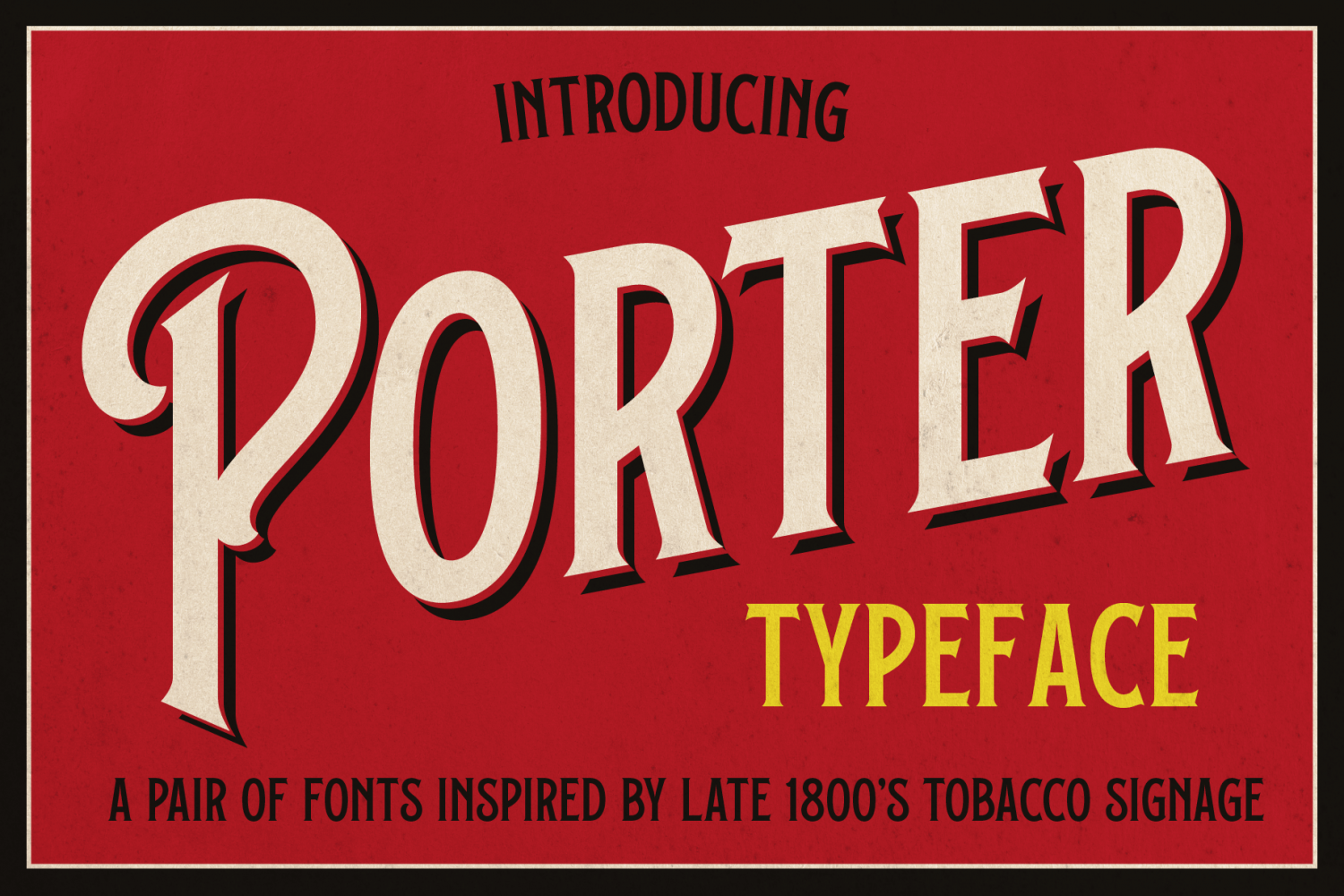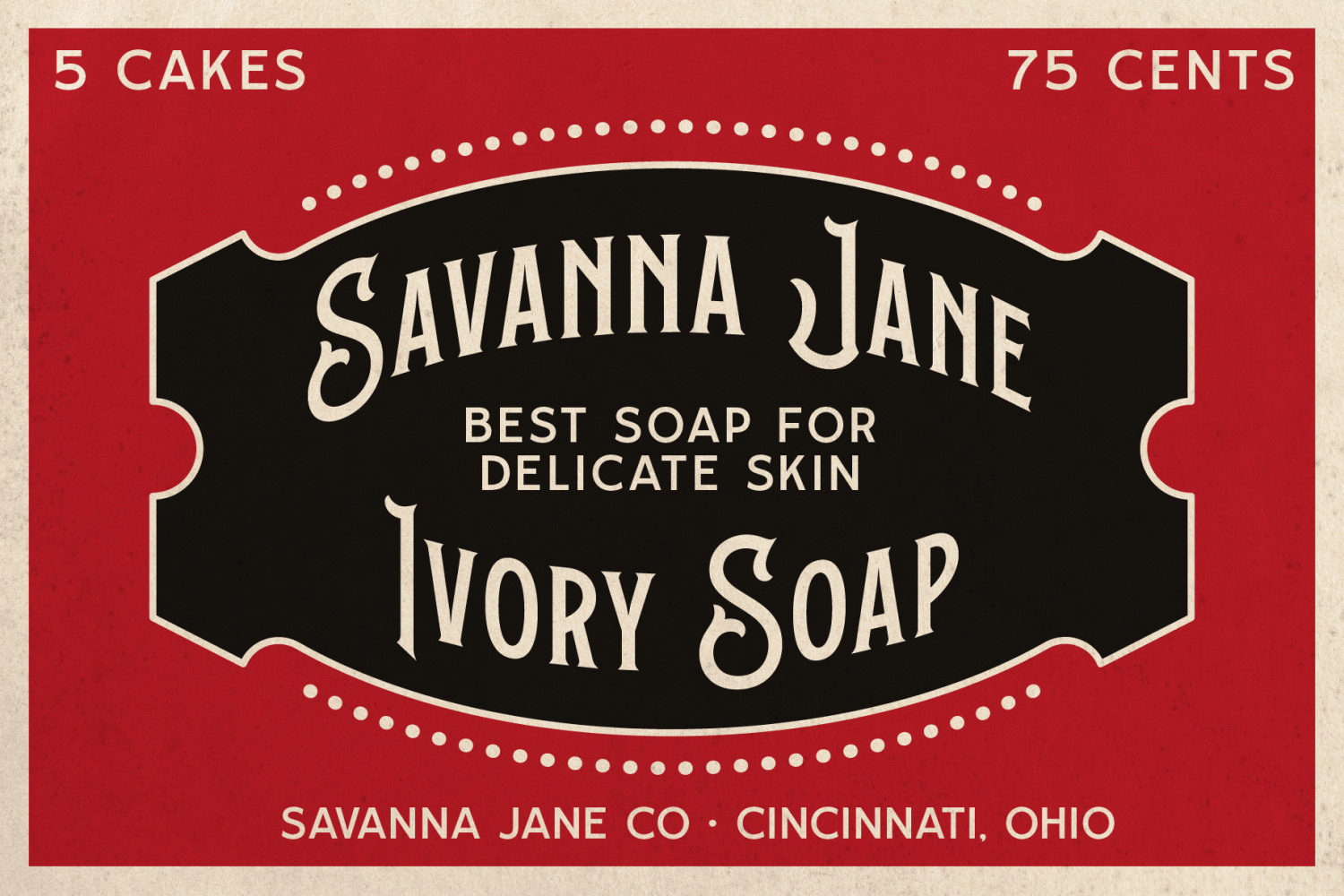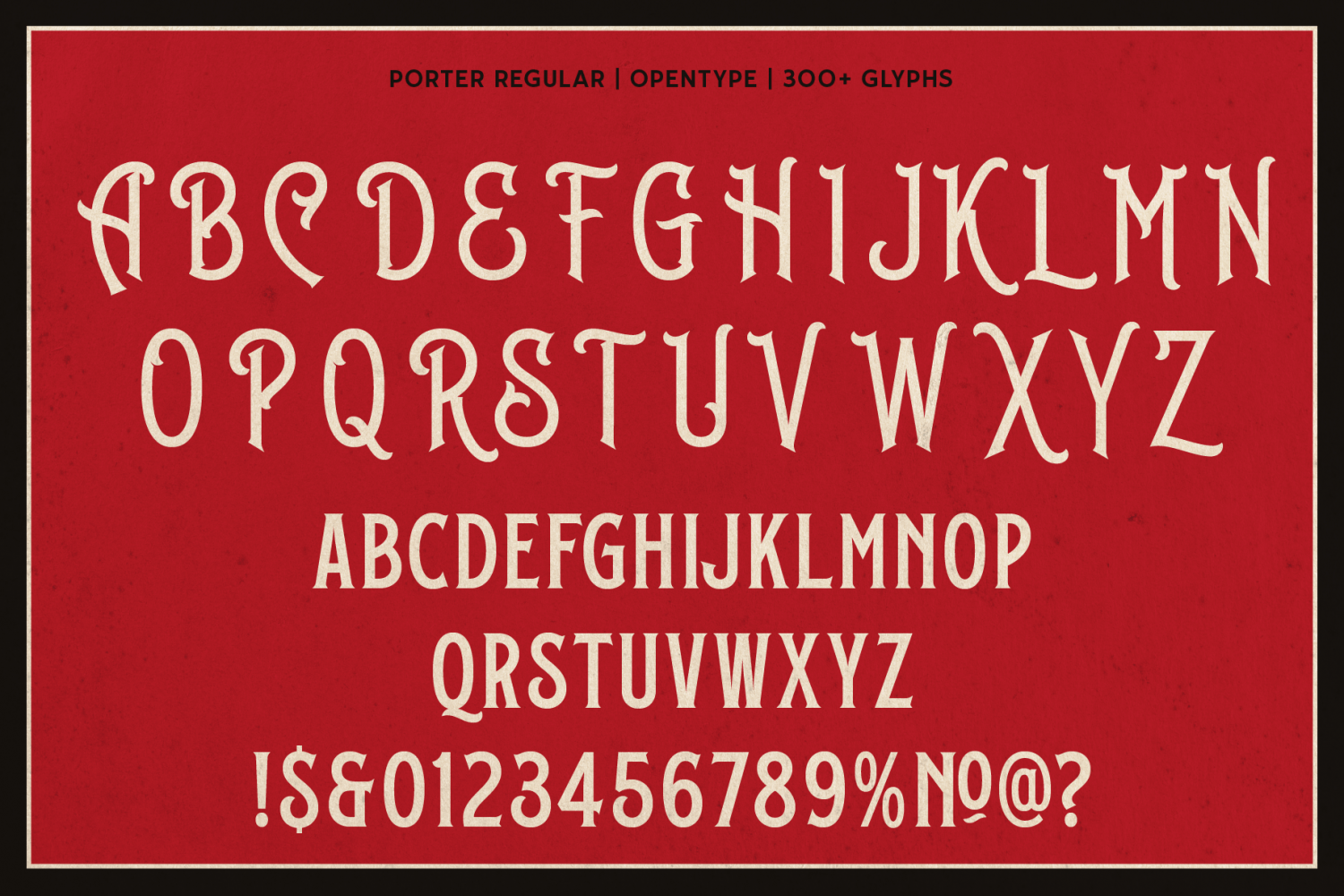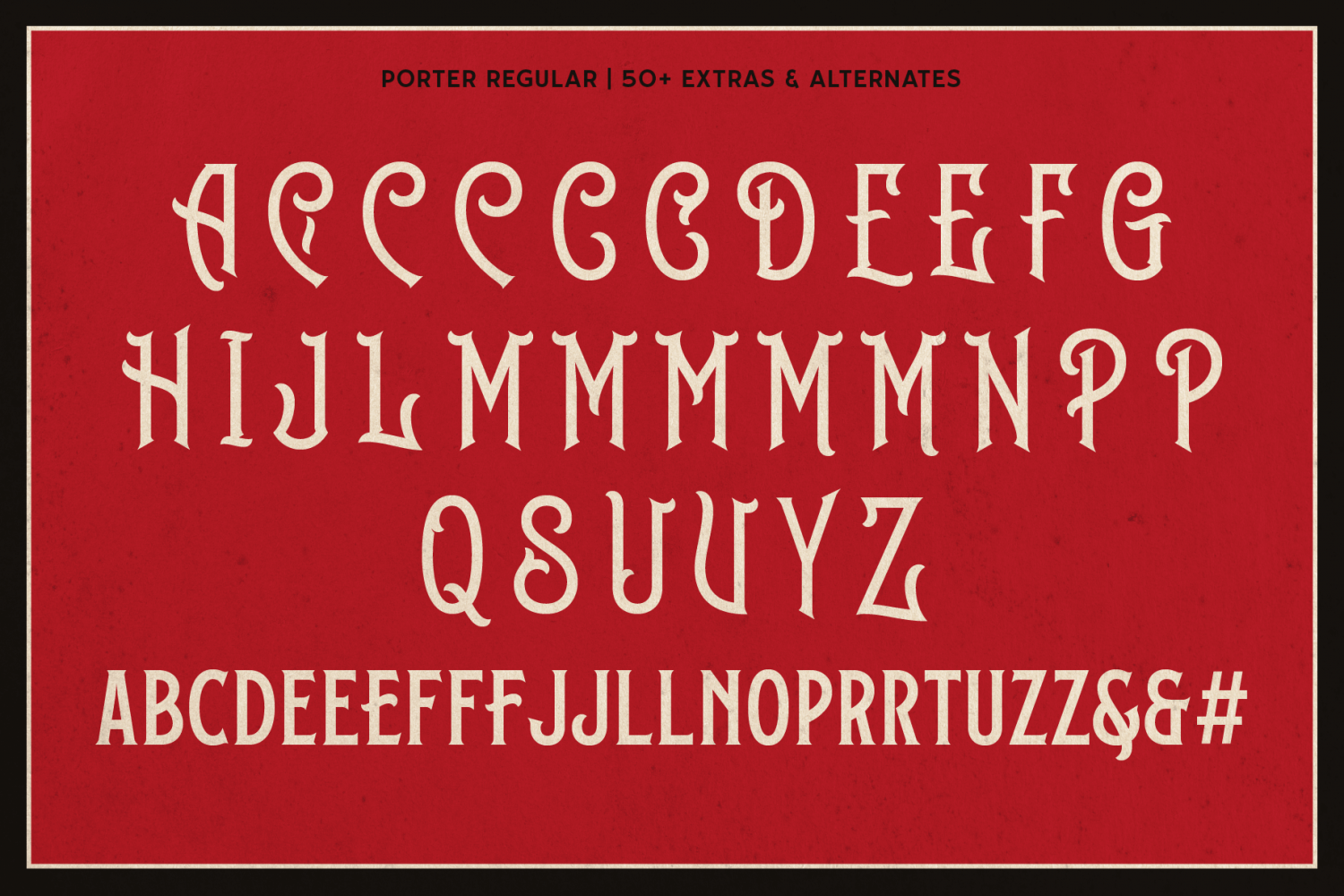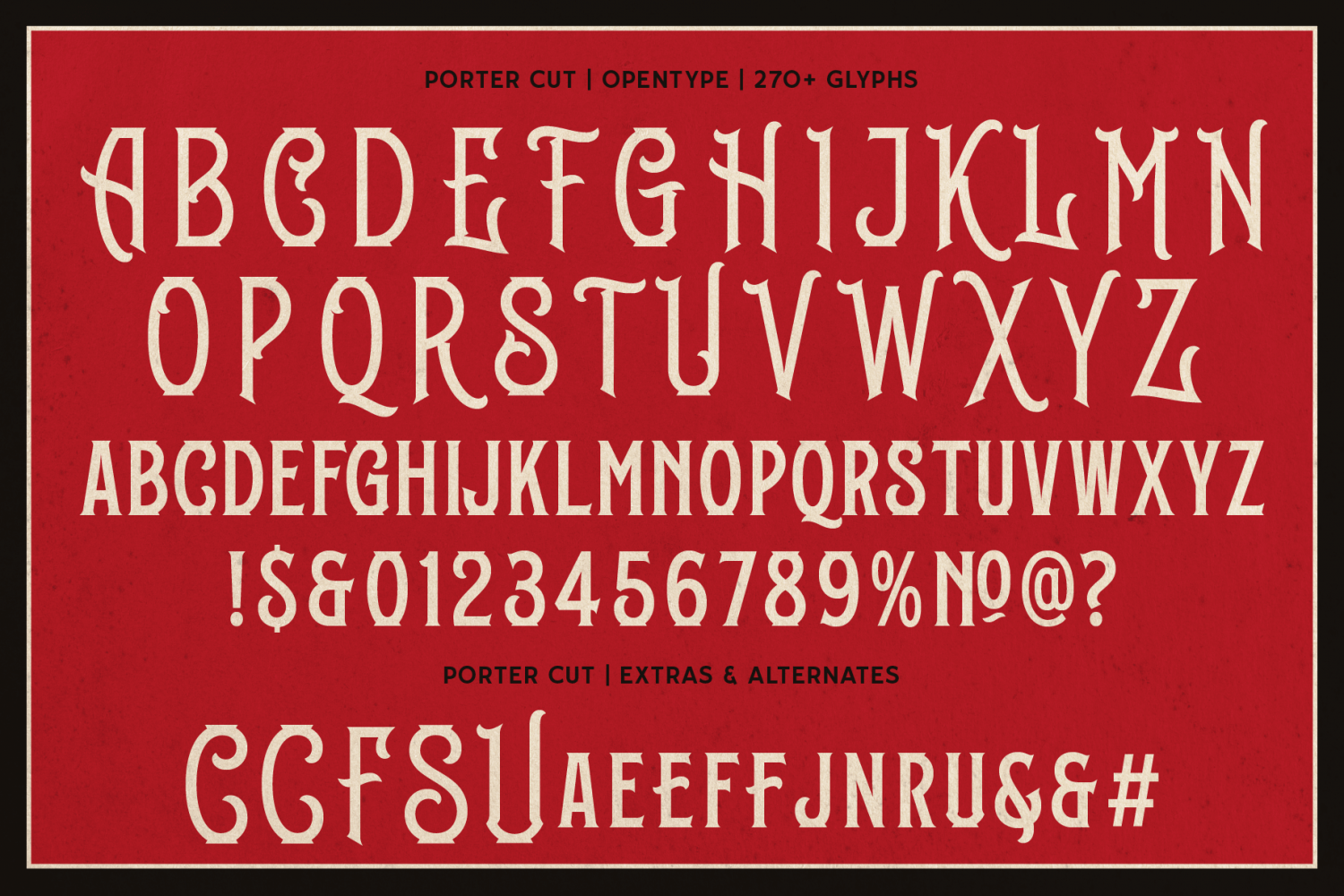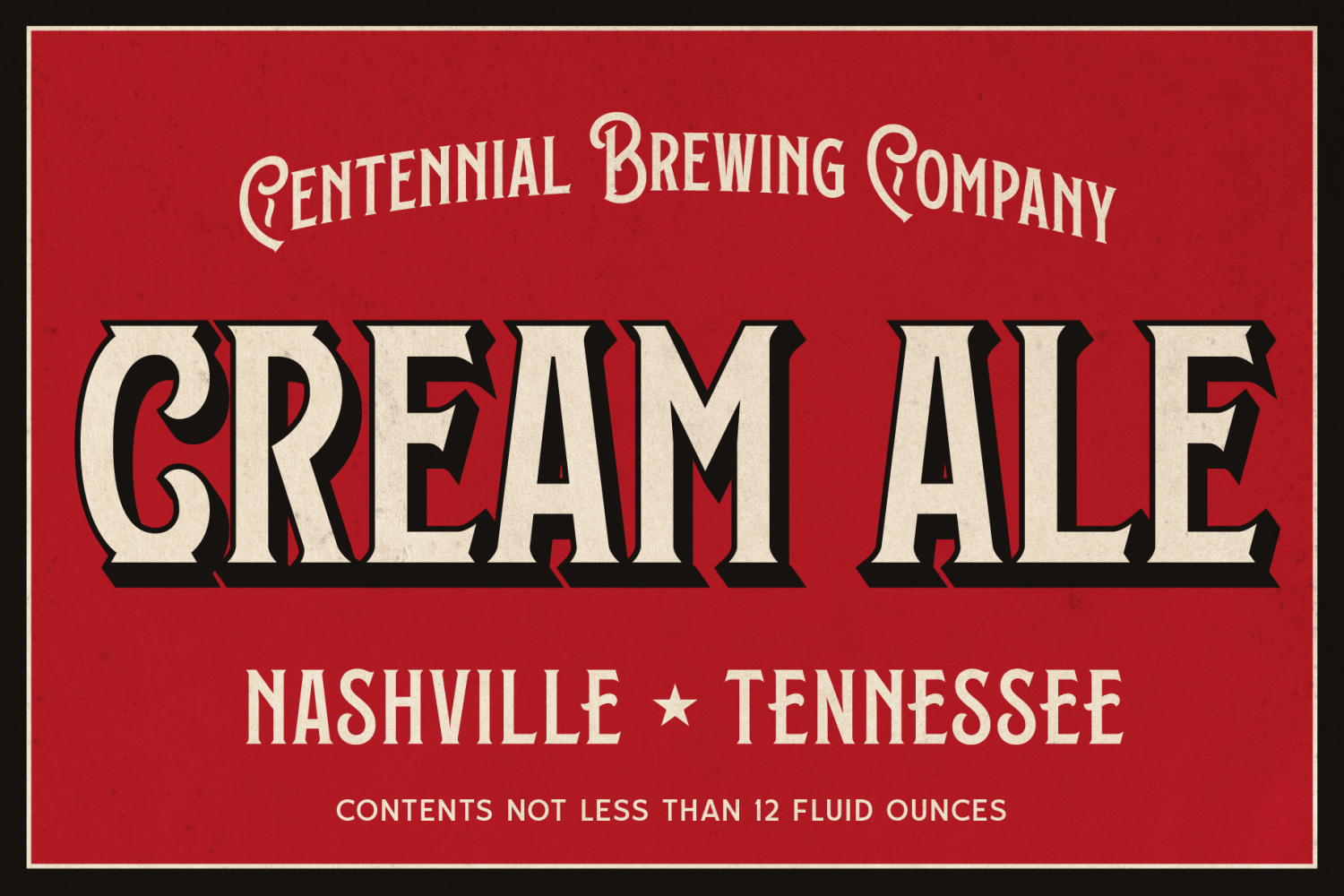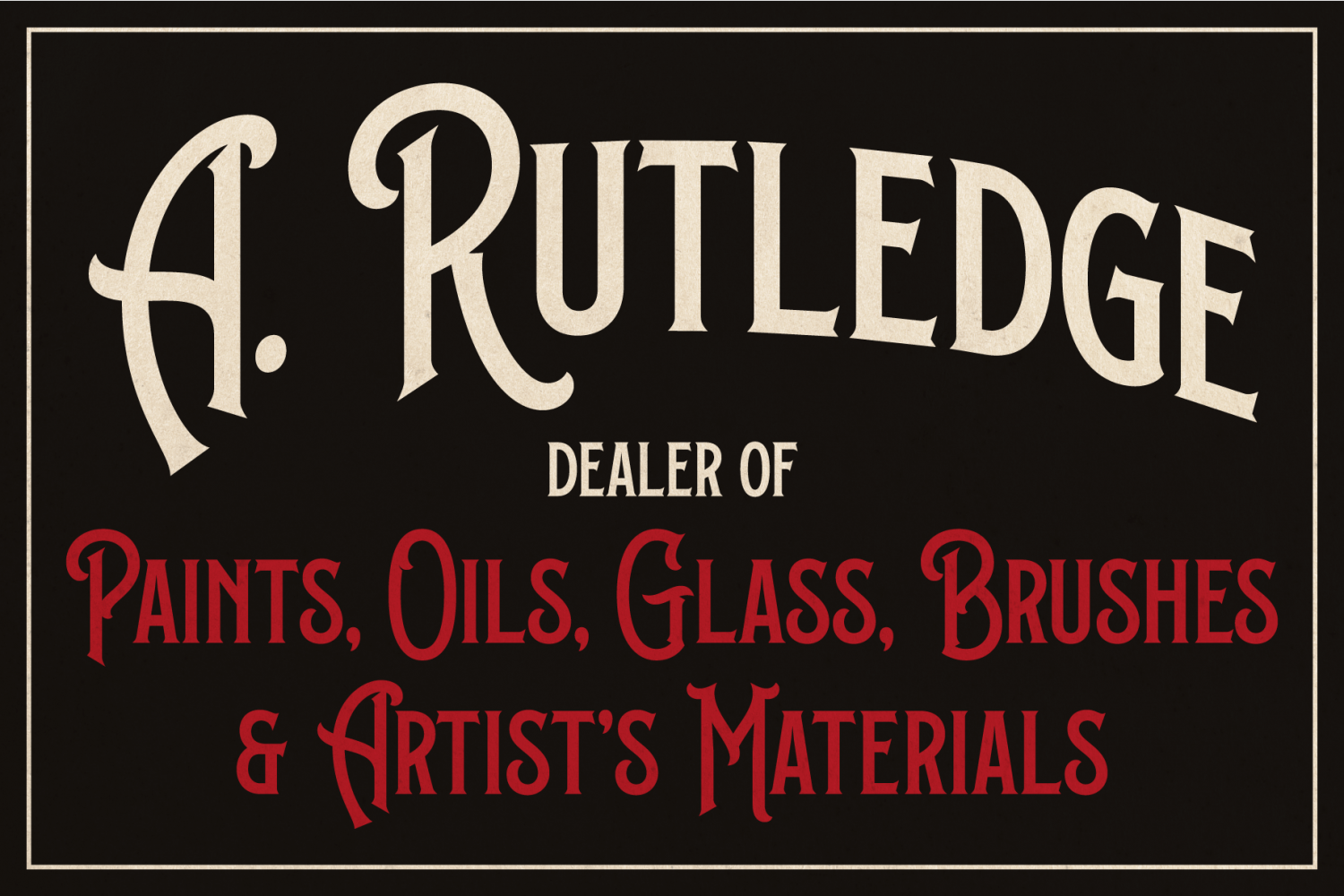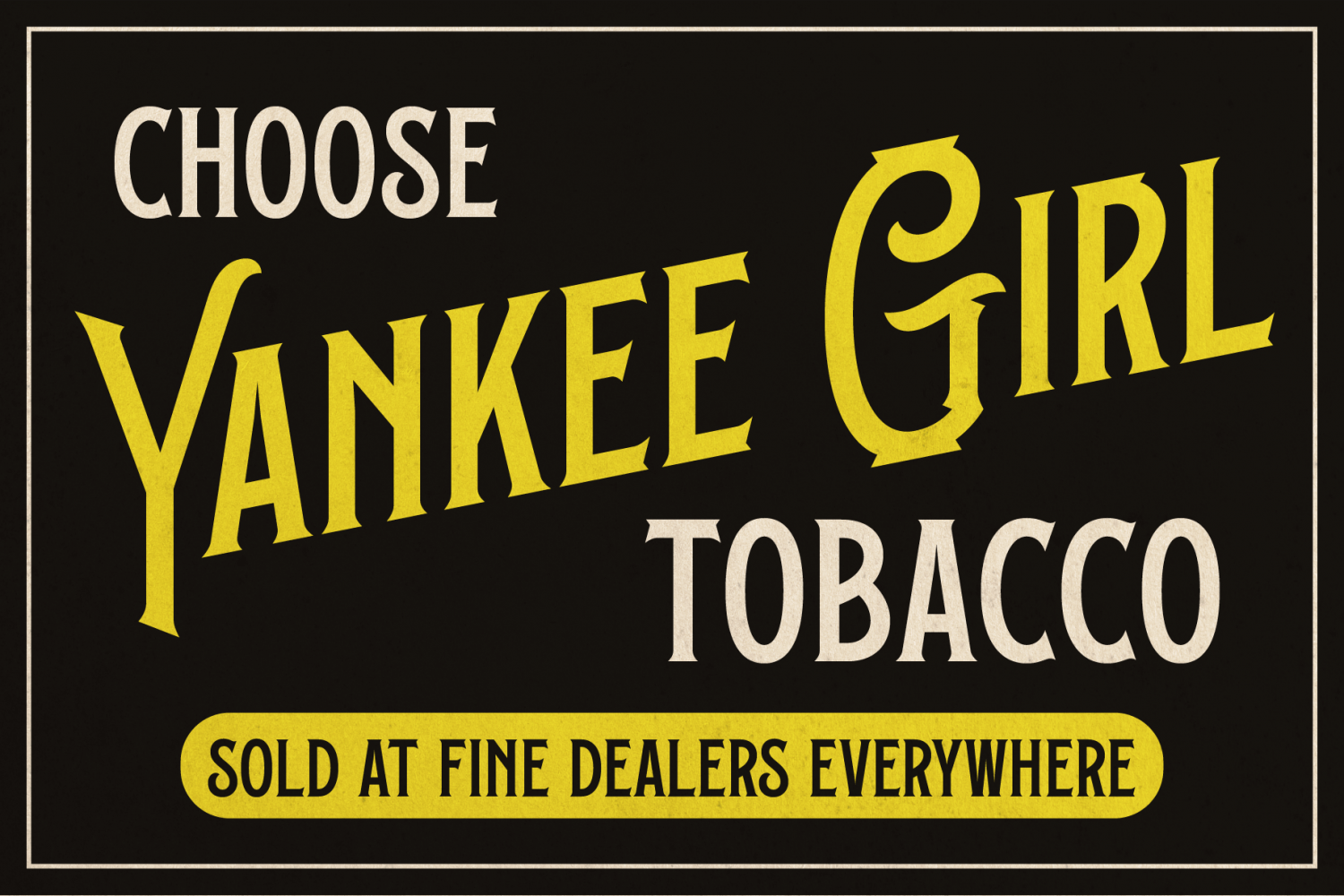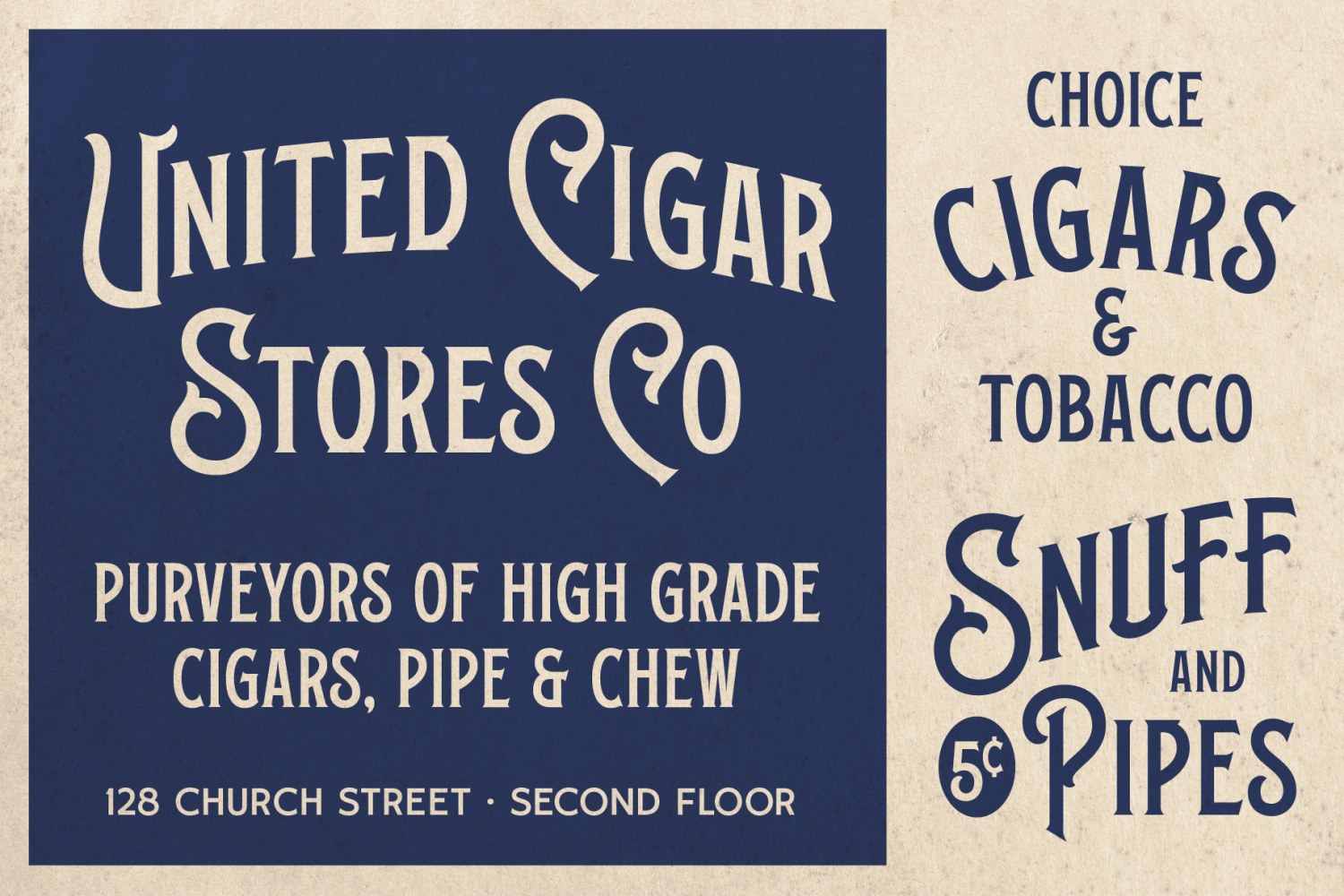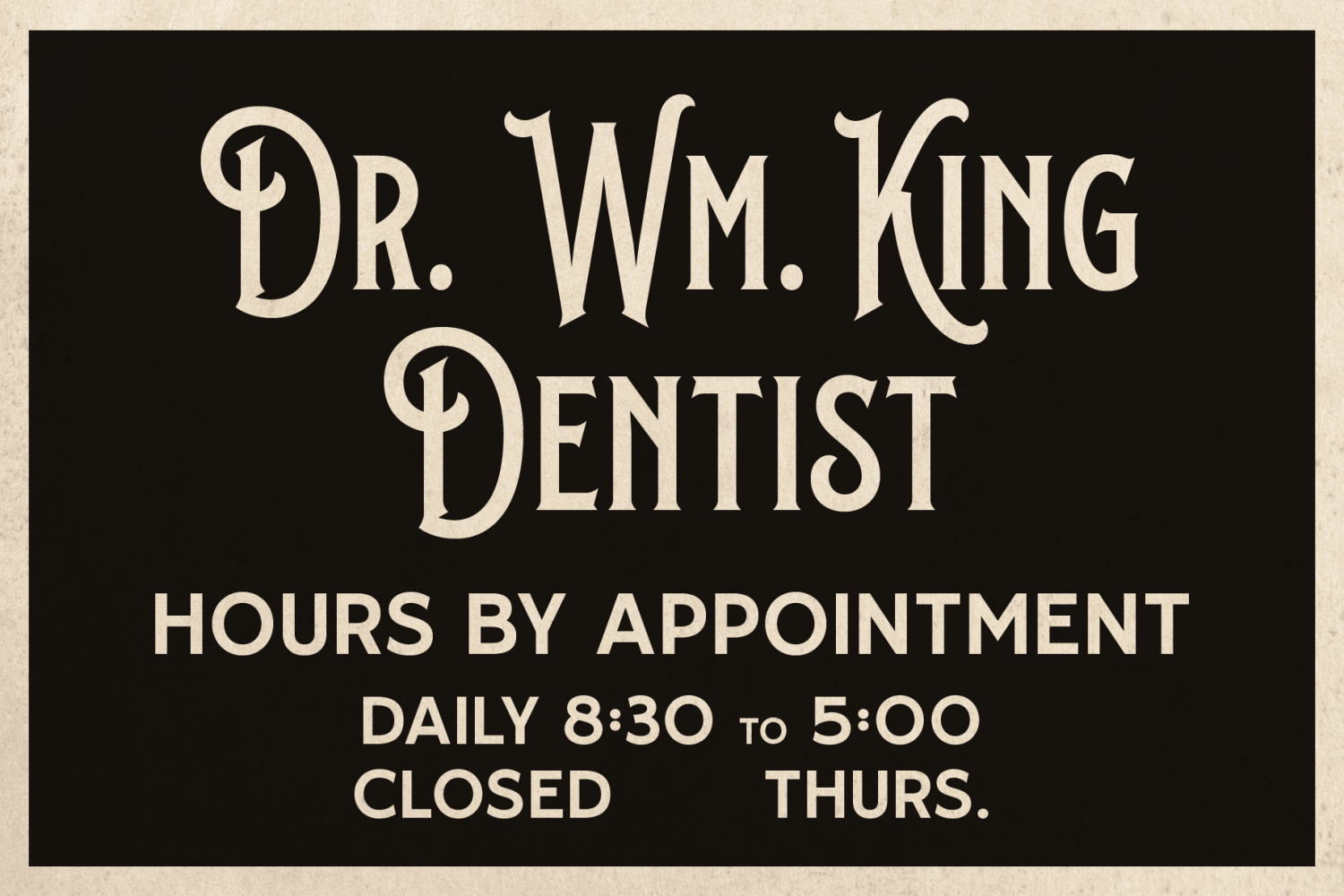
Porter Cut
Font Family by Searfoss Design
Porter is a bold, easy-to-read font pair that's perfect for replicating vintage, period designs, signage, logos and product labels. With flared bases and large, decorative uppercase letters, this font recreates the look of early American tobacco and cigarette advertising masterfully. Porter features numerous stylistic alternates to quickly add custom looks to your designs. Porter Cut features flat top and bottoms on the rounded characters that was commonly used in many early 1900s product advertising.
Features:
• Upper and lowercase A-Z
• Numerals and punctuation
• Accent characters
• Porter Regular
• 54 Stylistic alternates
• 7 Ligatures
• Porter Cut
• 17 Stylistic alternates
• 7 Ligatures